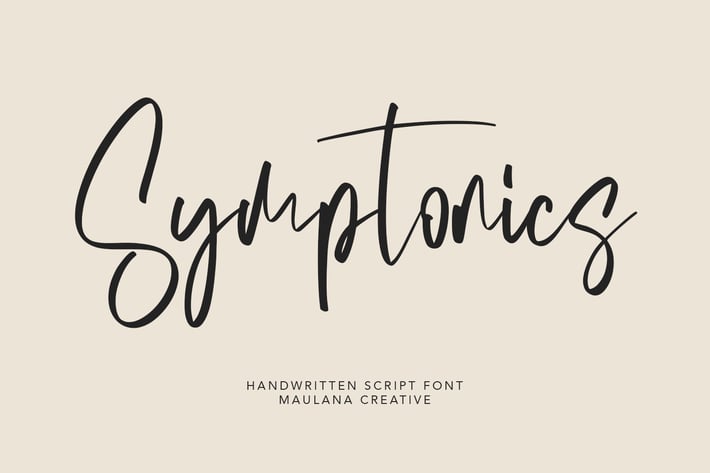
Symptonics Signature Handwritten Font
Give your designs an authentic brush handcrafted feel. Symptonics is perfectly suited to signature, stationery, logo, typography quotes, magazine or book cover, website header, flyer, clothing, branding, packaging design and more.